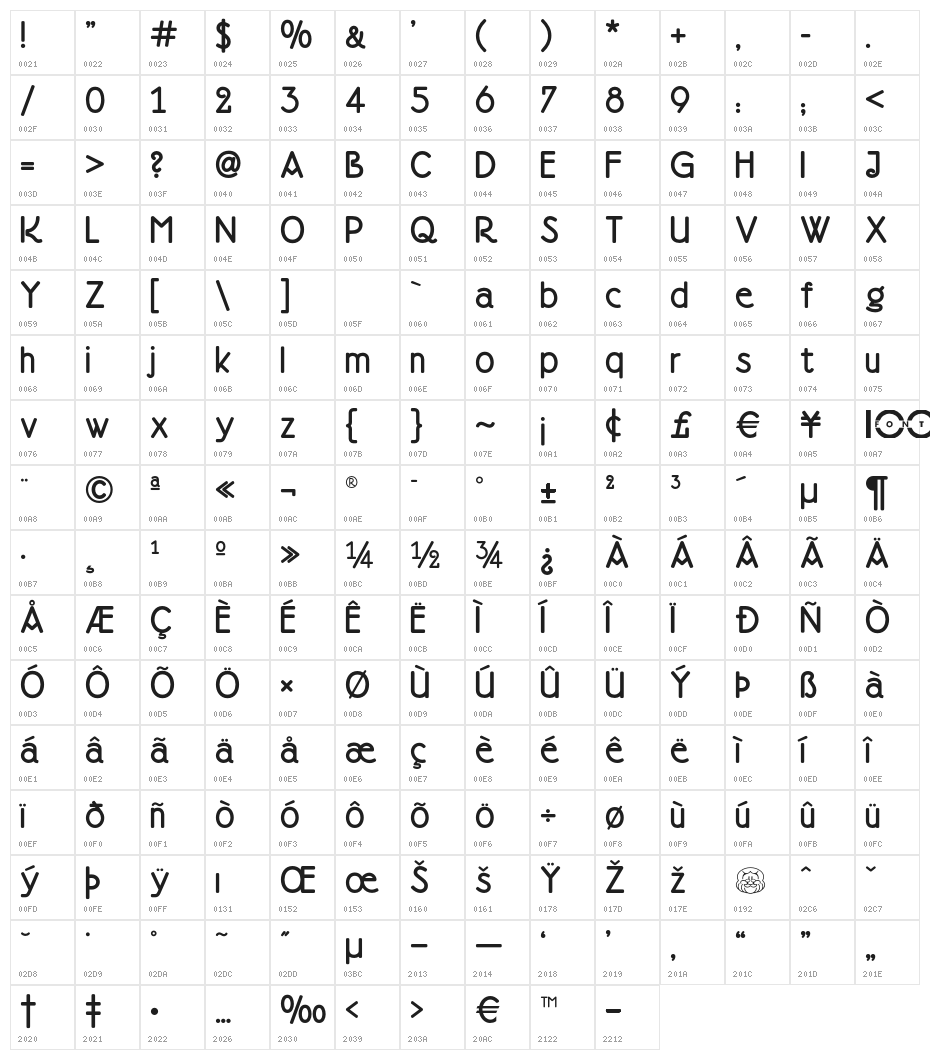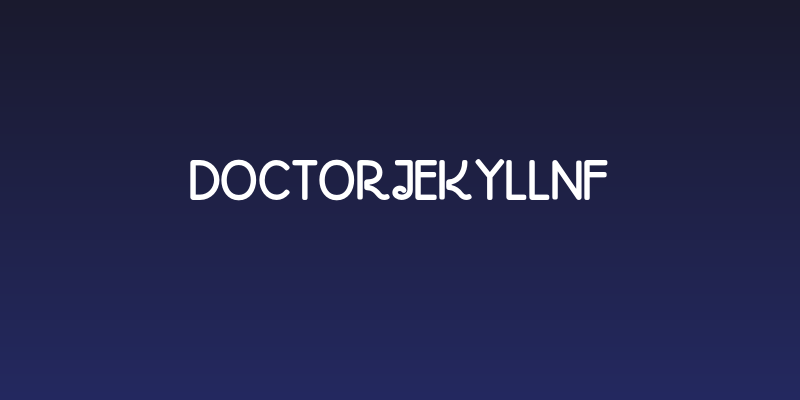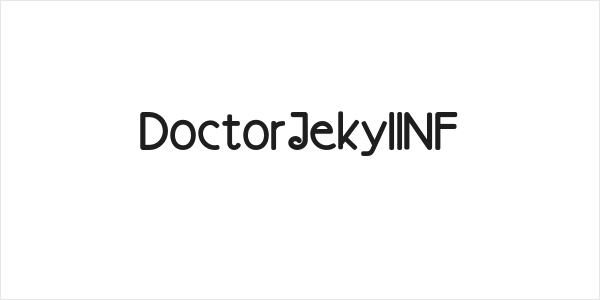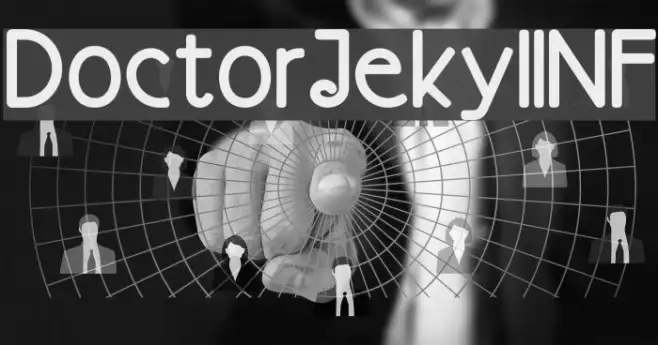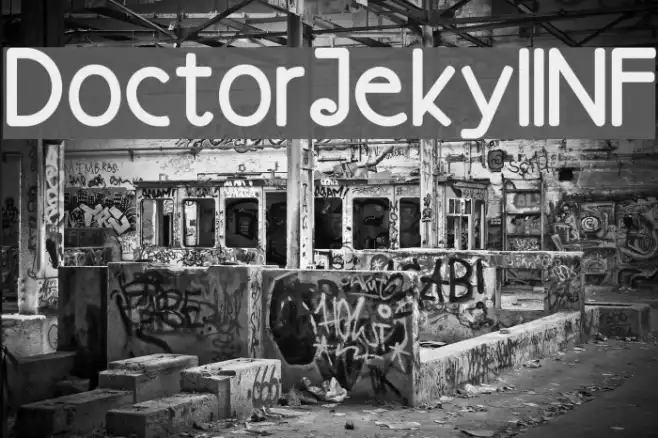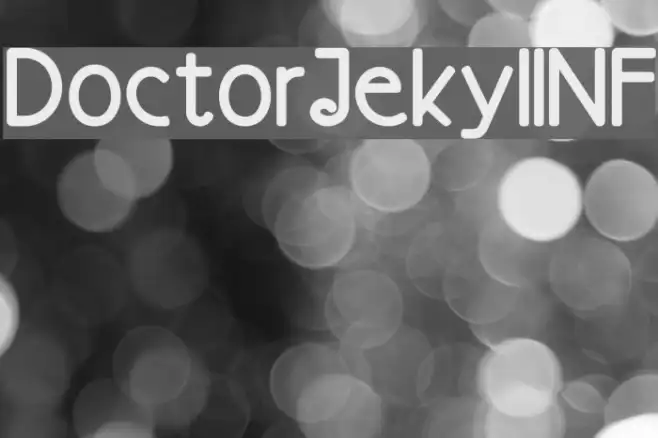
DoctorJekyllNF Font
DoctorJekyllNF Description
This font features a playful and rounded design, characterized by its smooth curves and uniform stroke width. The uppercase letters are bold and slightly condensed, giving a modern yet approachable feel. The lowercase letters maintain the same rounded aesthetic, with a consistent x-height that ensures readability. Numbers are clear and distinct, matching the overall style of the alphabet. Special characters are well-integrated, maintaining the font's cohesive look. The overall design is clean and versatile, suitable for a variety of applications where a friendly and inviting tone is desired.
| Use Case | Headlines, Logos, Digital content |
| Proposed Projects | Ideal for children's books, educational materials, playful branding, and casual digital content. |